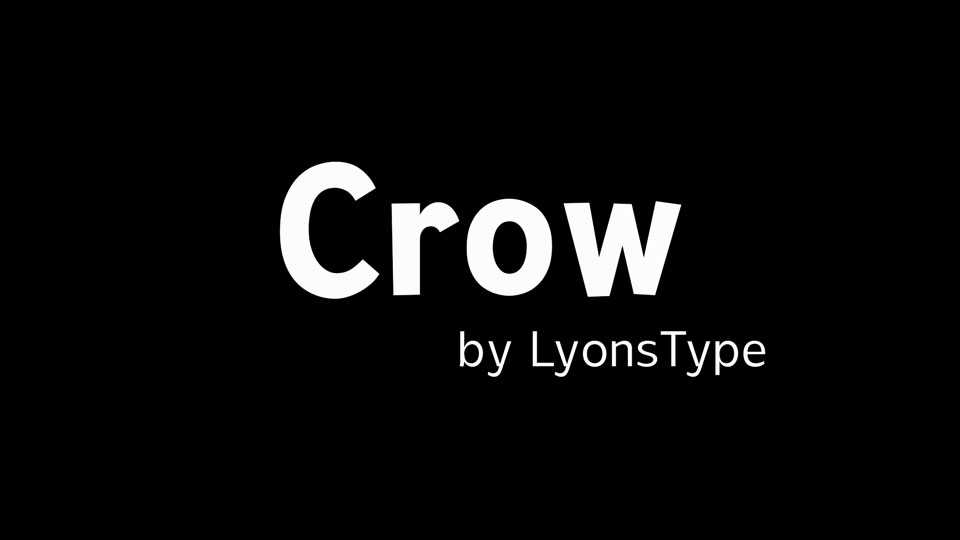
Download LT Crow font, a simple and playful sans serif typeface designed to bring a touch of joy and approachability to your typography.
Designer: LyonsType